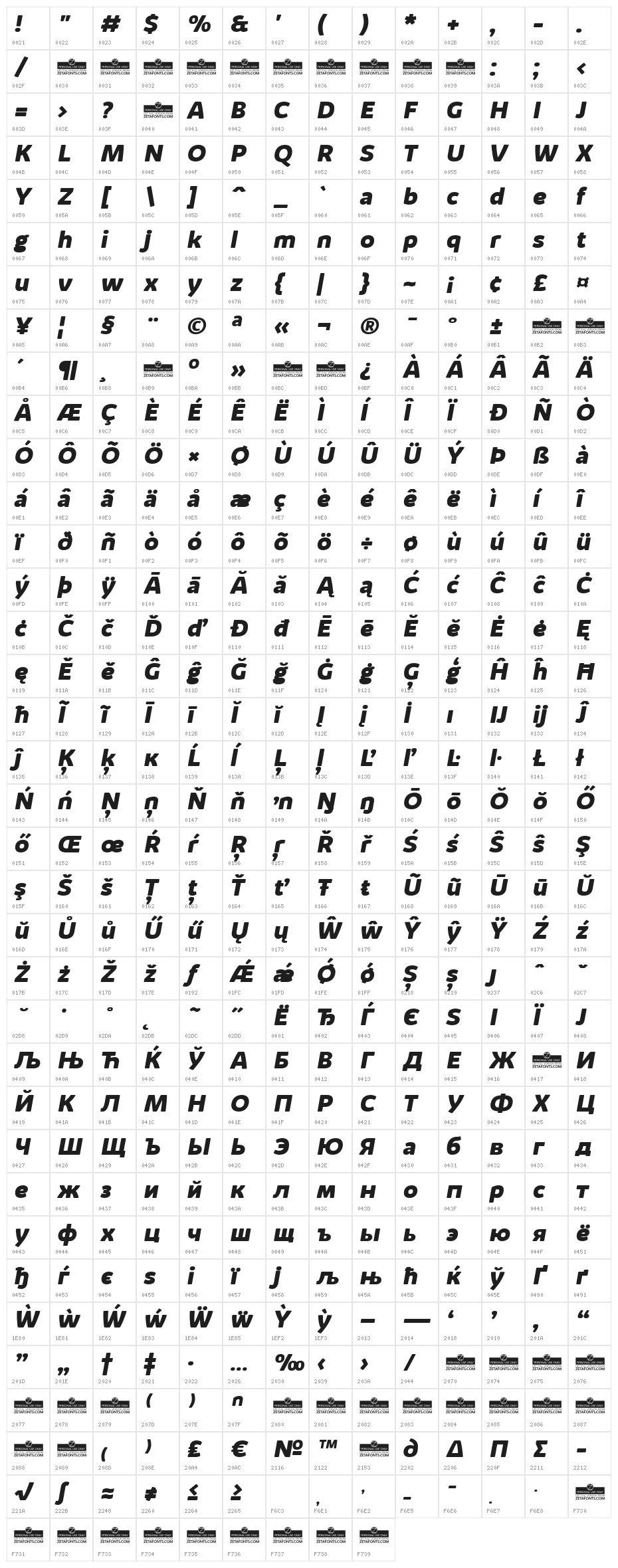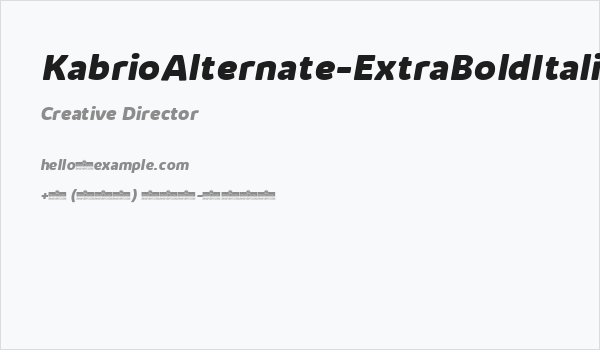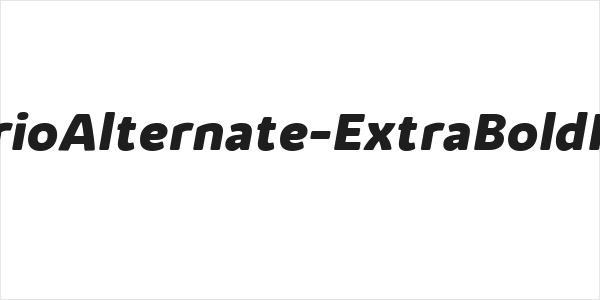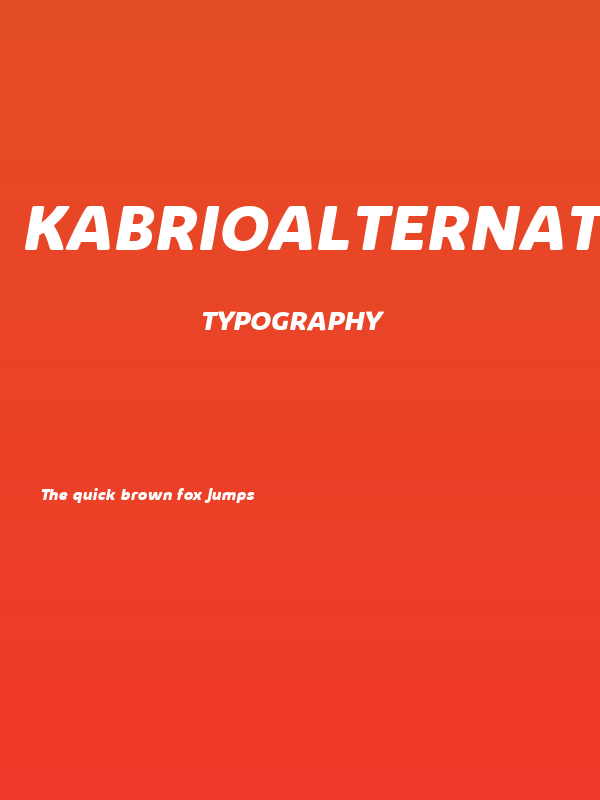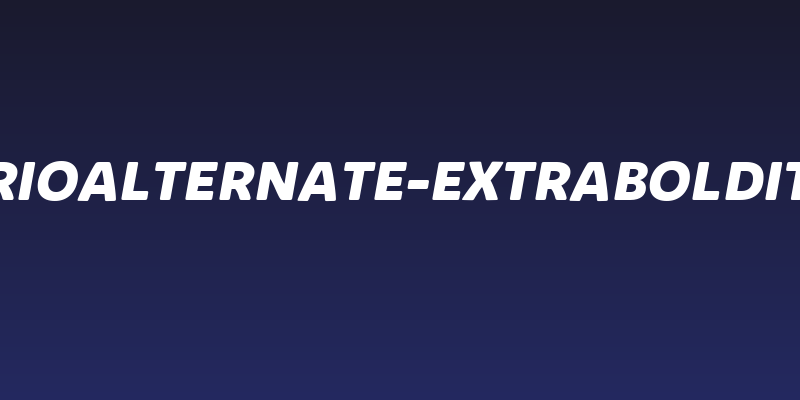
KabrioAlternate-ExtraBoldItalic Font
KabrioAlternate-ExtraBoldItalic Description
This font features a bold and dynamic style with a strong italic slant, giving it a sense of motion and energy. The characters are robust and well-defined, with a modern sans-serif appearance. The uppercase and lowercase letters maintain a consistent weight, providing a cohesive look across all text. The numerals and special characters are equally bold, ensuring readability and impact. This typeface is designed to stand out, making it ideal for attention-grabbing headlines or branding materials.
| Proposed Projects | Ideal for branding, advertising, headlines, and any project requiring a strong visual impact. |